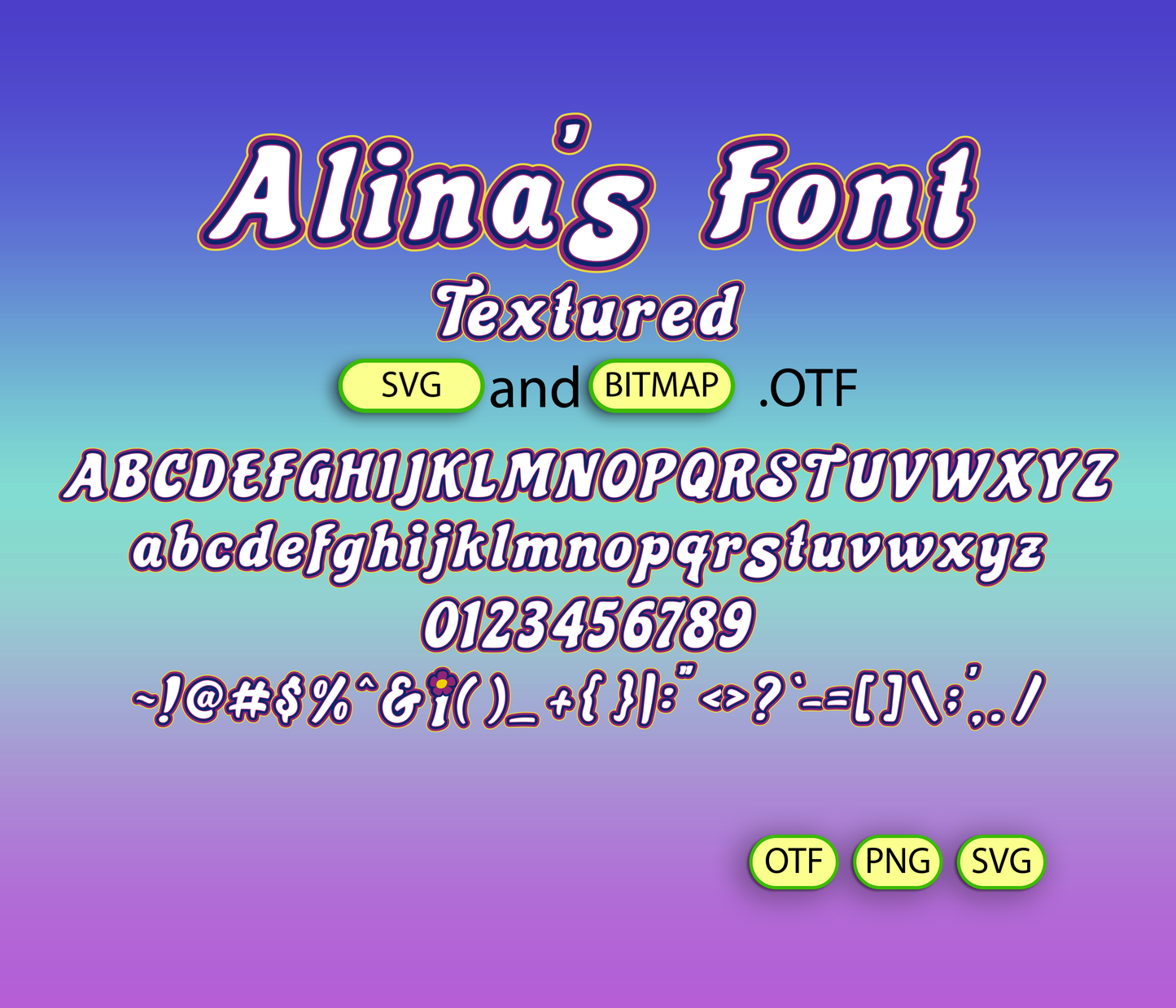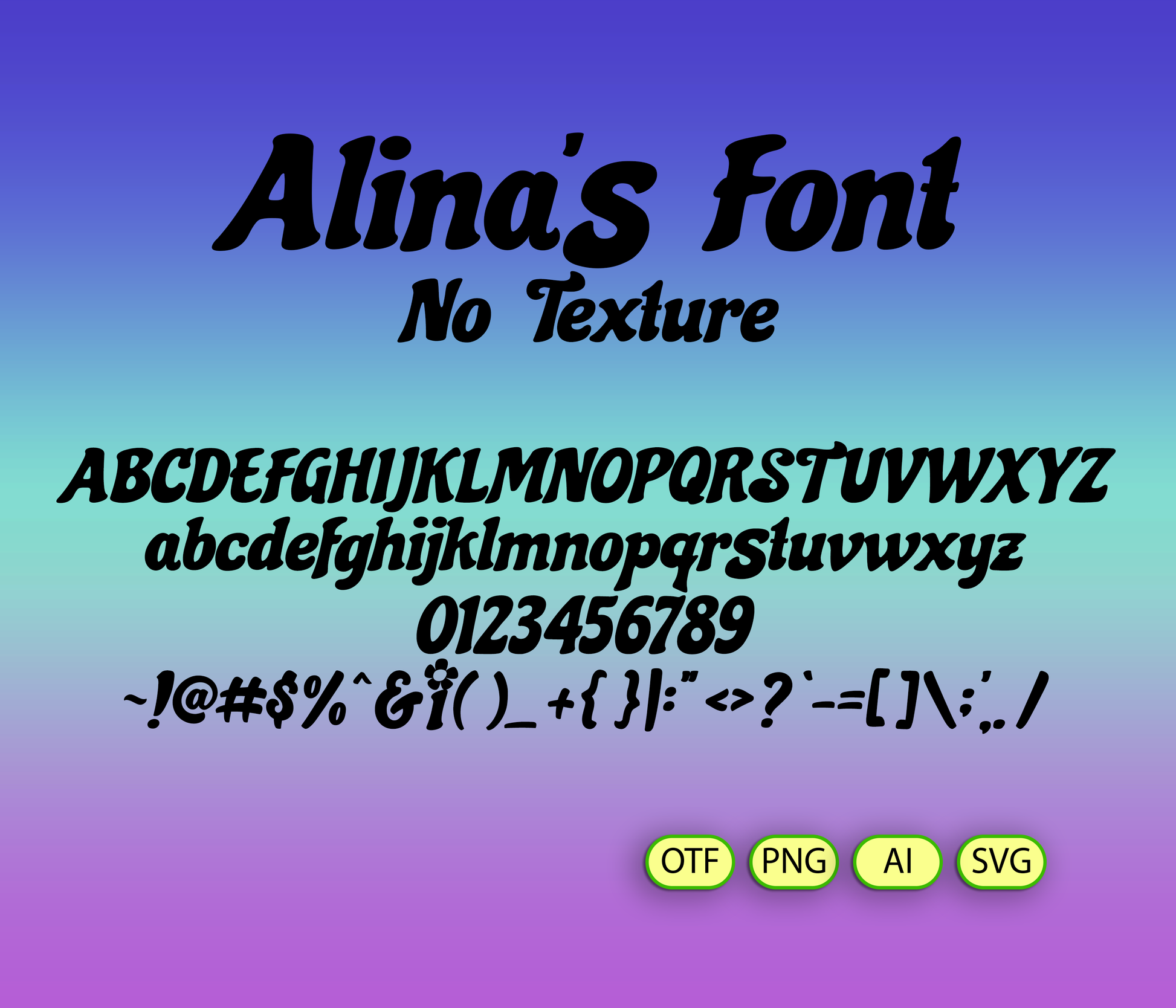
Spy Chic Font Textured
Step into the Action with the Spy Chic Font
Step into the action-packed and fashionable universe of Spy Chic with our custom-designed font, a homage to the animated series known for its blend of espionage, adventure, and teenage fun. This font captures the essence of girls thrilling escapades as undercover spies balancing high school life. Each character in the font is infused with the show's vibrant energy, sleek style, and a touch of girlish charm, making it perfect for projects that aim to evoke the excitement and glamour of the Spy Chic series.
What Font is Spy Chic Font?
Envision a typeface that encapsulates the show's modern, chic, and adventurous spirit. Our font is meticulously designed to mirror the dynamic and stylish visuals of Spy Chic, with a nod to the high-tech gadgets and fashionable themes that the series is famous for. It includes an extensive character set, covering alphabets, numbers, and special symbols, providing a comprehensive toolkit for a variety of creative projects inspired by the world of espionage and teenage drama.
The Spy Chic font is versatile and perfect for a wide array of creative and commemorative applications:
1. Themed Party Invitations: Ideal for creating vibrant invitations for Spy Chic-themed parties or events.
2. Fashion and Retail Projects: Use in branding and promotional materials for fashion and youth-oriented retail.
3. Custom Apparel and Merchandise: Design t-shirts, bags, and accessories inspired by the show.
4. Digital Content and Gaming: Enhance websites, social media graphics, and interfaces for games with a spy-themed twist.
5. Animation and Film Projects: Suitable for titles, credits, and promotional materials in related productions.
6. Educational Materials: Use in teaching resources to add a fun, engaging element.
7. Personalized Stationery: Create stationery sets that reflect the show's stylish themes.
8. Home Decor: Design wall art and decor items for fans of the series.
9. Event Signage and Decor: Craft eye-catching banners and decorations for themed events.
10. Creative Art and DIY Projects: Perfect for scrapbooking, crafting, and artistic projects inspired by the show.
• Textured and Non-Textured Variants: Choose between a sleek, modern style or a clean, non-textured version for diverse design needs.
• Extensive Character Set: Offers a wide range of characters for comprehensive design possibilities.
The Spy Chic-inspired font is more than just a typeface; it's an embodiment of the show’s thrilling world of espionage, fashion, and teenage life.